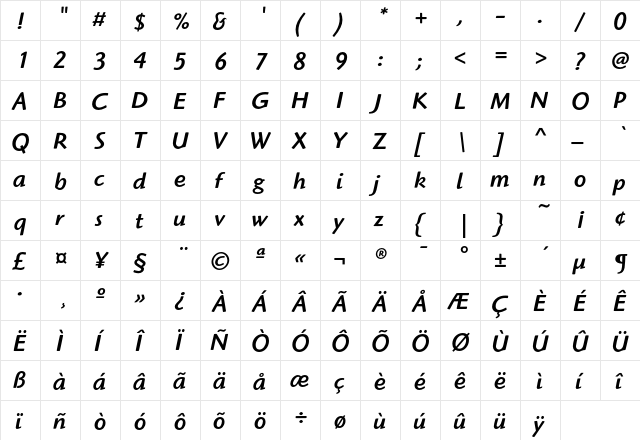
HighlanderEF MediumItalic Font Preview
HighlanderEF MediumItalic
HighlanderEF MediumItalic Font Details
Design Context for HighlanderEF Typeface
HighlanderEF offers clean, dependable letterforms without strong stylistic allegiance, making it a practical choice for designers who need flexibility. The dynamic lean of this cut emphasises speed and emphasis in any layout.
Pro Tip: Use HighlanderEF for emphasis, pull quotes, and subheadings where its slanted energy can add rhythm to the layout.